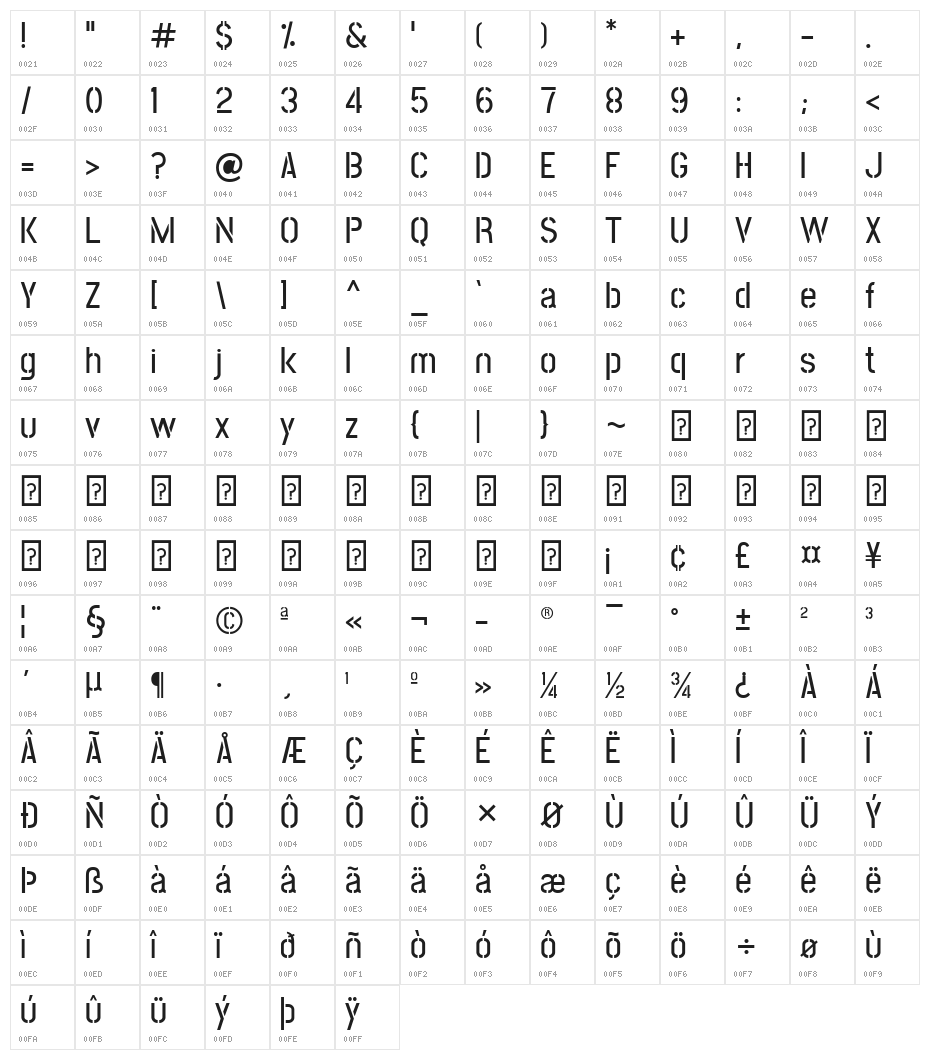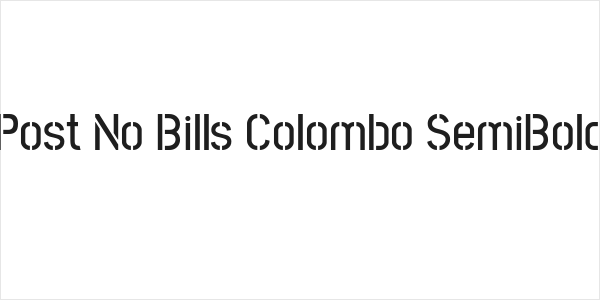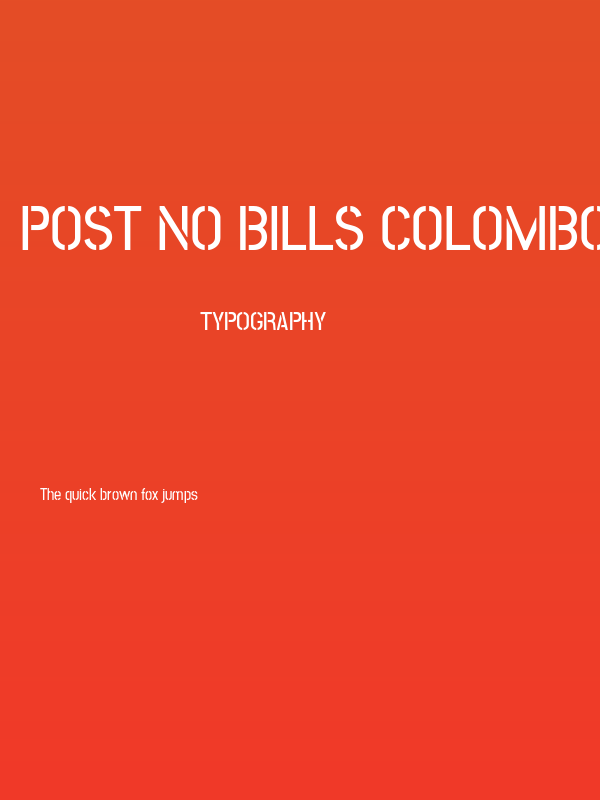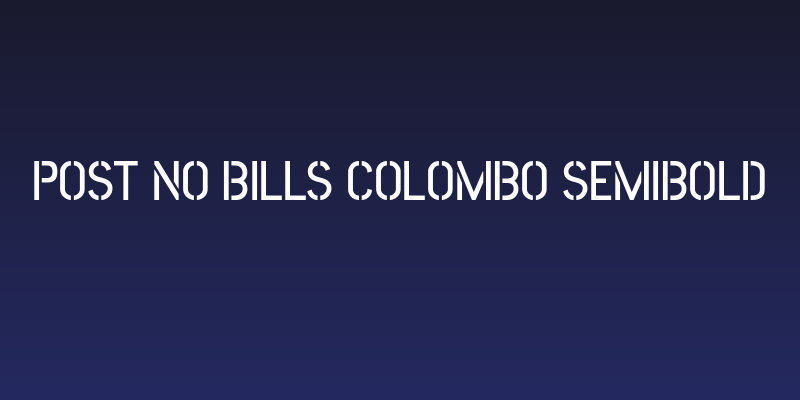
Post No Bills Colombo SemiBold Font
Post No Bills Colombo SemiBold Description
This font features a bold, geometric design with a modern and industrial feel. The characters are constructed with clean, straight lines and sharp angles, giving it a distinctive and contemporary look. The uppercase and lowercase letters maintain a consistent style, with a uniform stroke width that adds to its bold appearance. The numerals and special characters are designed to match the overall aesthetic, making it suitable for a variety of design applications. The font's unique style is characterized by its cut-out sections within the strokes, creating a striking visual effect that enhances its modern appeal.